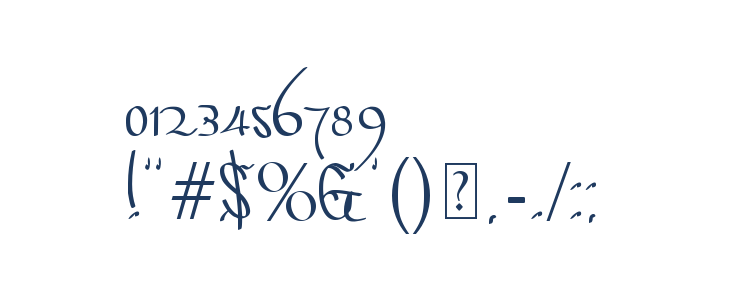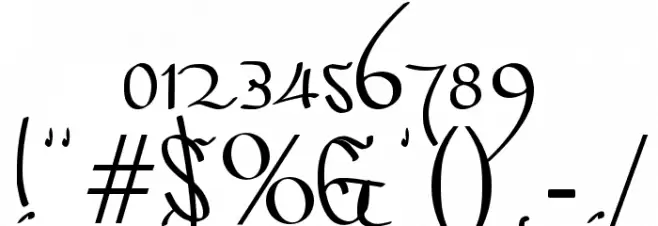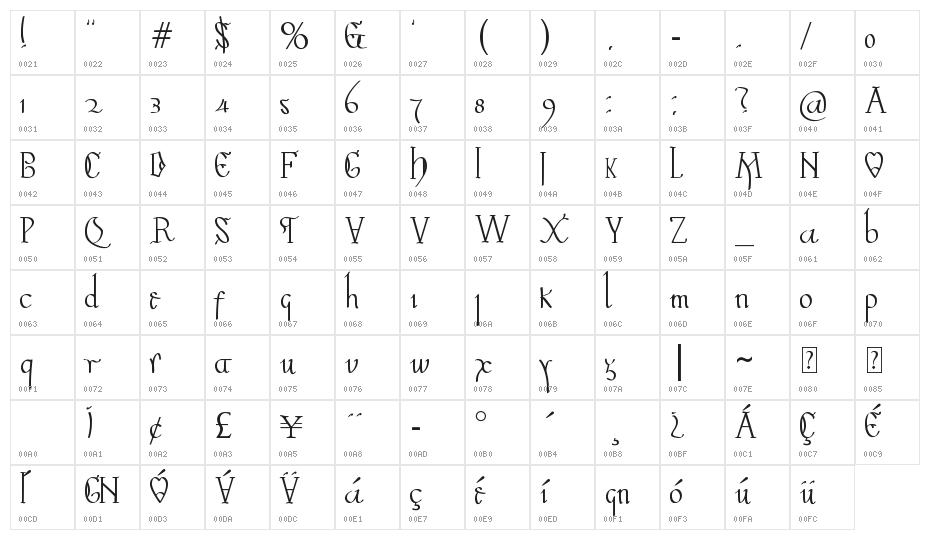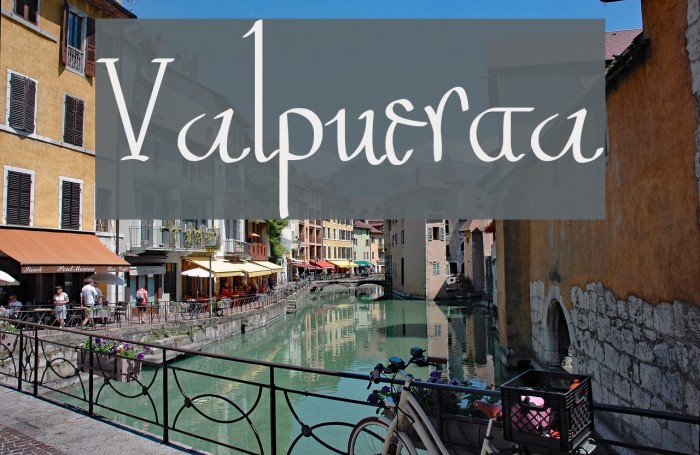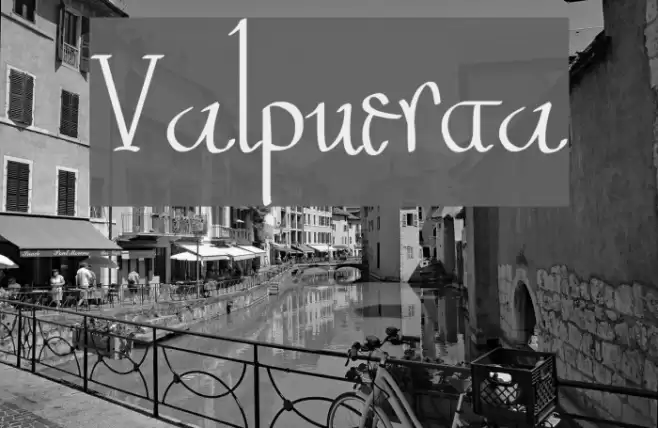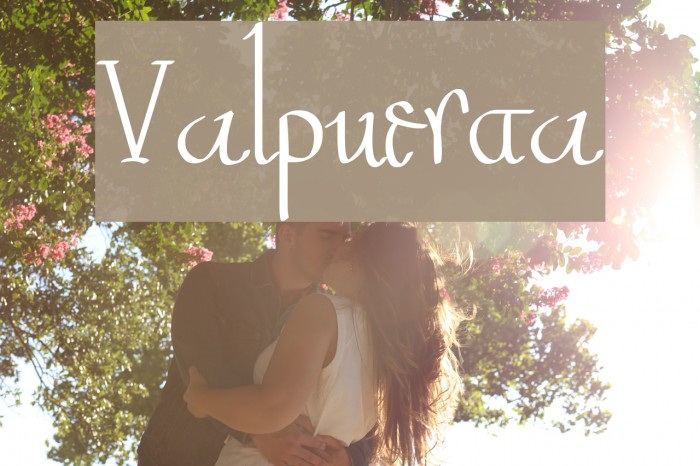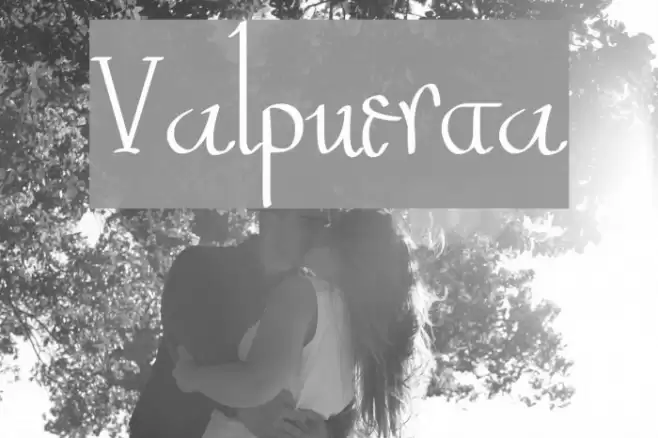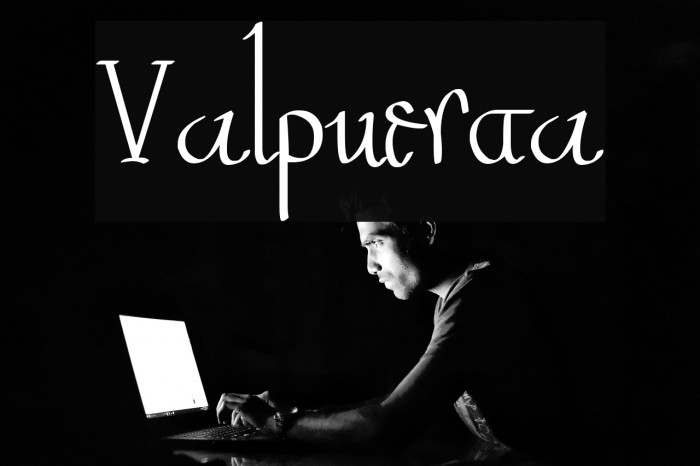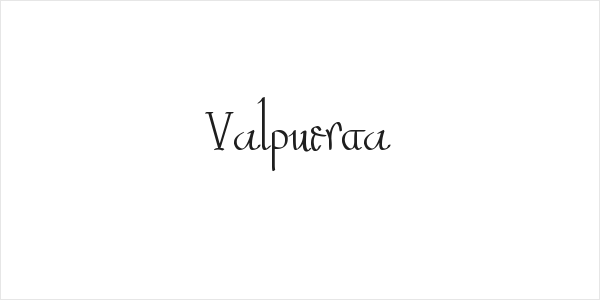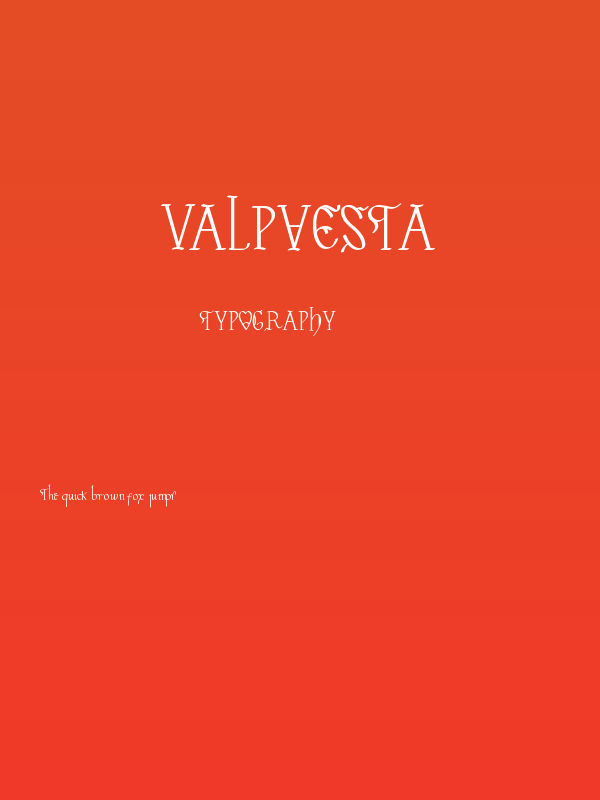
Valpuesta Font
Valpuesta Description
This font features a unique and artistic style with a medieval flair, characterized by its intricate and decorative letterforms. The uppercase letters are tall and elegant, with exaggerated serifs and flourishes that give them a regal appearance. The lowercase letters maintain this decorative style, with some characters featuring loops and swashes that add to the overall ornate design. The numerals are consistent with the letterforms, offering a cohesive look. Special characters are creatively designed, maintaining the font's artistic theme. This font is perfect for projects that require a touch of historical elegance and creativity.
| Proposed Projects | Ideal for historical-themed designs, invitations, book covers, and branding that requires a touch of elegance and creativity. |